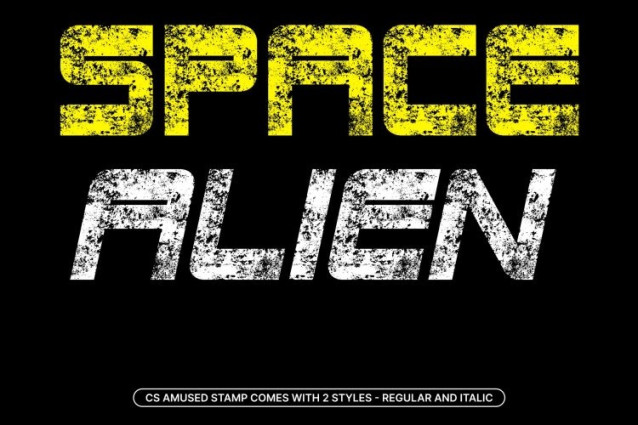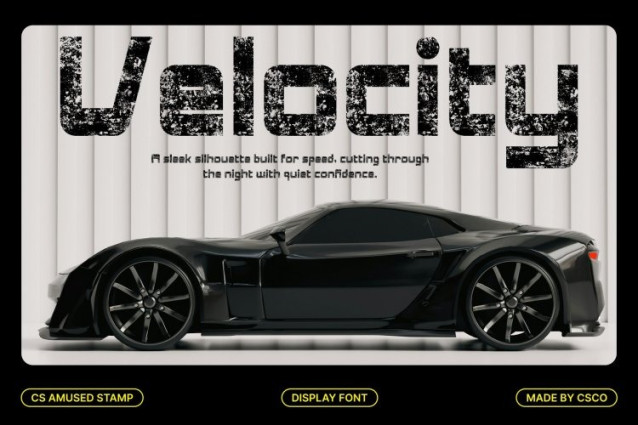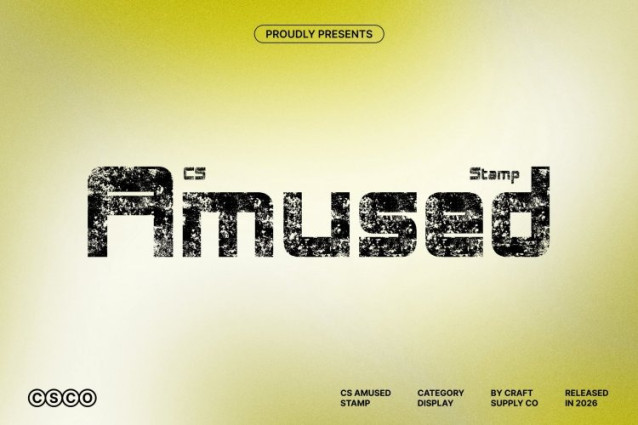
CS Amused Stamp Font
CS Amused Stamp Font This is a bold techno-inspired sans serif display font that fuses futuristic structure with a vintage stamp finish. Its clean, digital geometry is enriched by worn edges, ink irregularities, and textured impressions, giving the font an aged, tactile character. This contrast creates a unique visual identity modern and high-tech at its core, yet expressive and nostalgic.
Bold Construction with Aged Visual Power
Built with solid strokes and confident proportions, this font delivers strong visual presence across headlines and branding. The stamp effect softens its sharp precision with subtle imperfections, adding character and depth without reducing clarity. Each letter feels pressed, slightly weathered, and full of attitude perfect for commanding layouts that still feel artistic and human.
Futuristic Form with Retro-Tech Soul
While its structure reflects speed, innovation, and digital energy, the stamped texture introduces a retro-tech atmosphere inspired by old industrial prints and analog machinery. This blend makes the font feel dynamic, expressive, and visually rich, ideal for projects that want to mix progress with history.
Perfect for Branding, Posters, and Creative Campaigns
This font excels in branding, logos, posters, music visuals, gaming graphics, and experimental campaigns. Its bold techno style paired with vintage texture makes it especially effective for creative agencies, tech brands with personality, streetwear visuals, and retro-futuristic concepts. The result is typography that feels powerful, expressive, and unmistakably memorable.